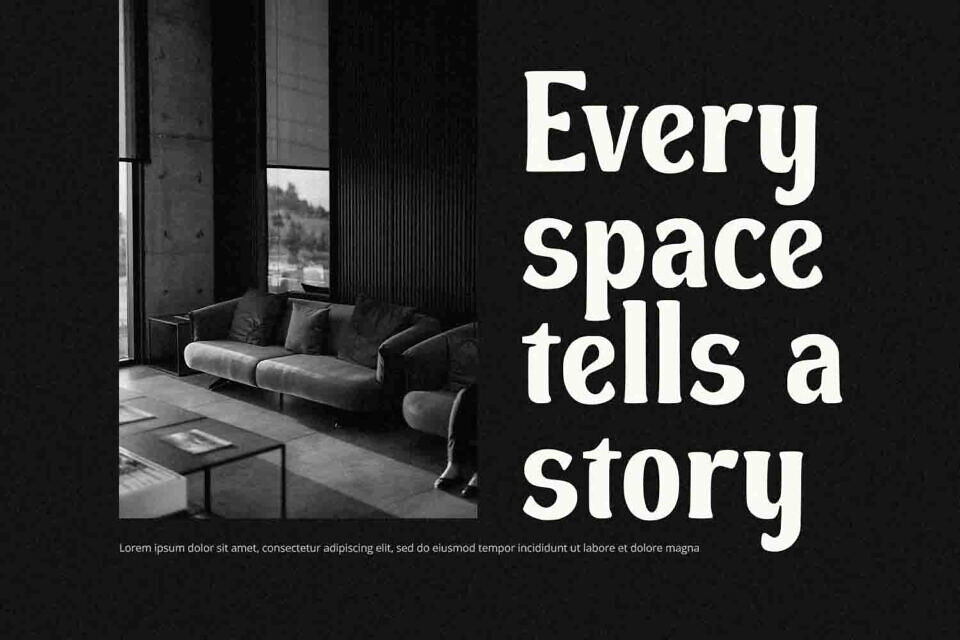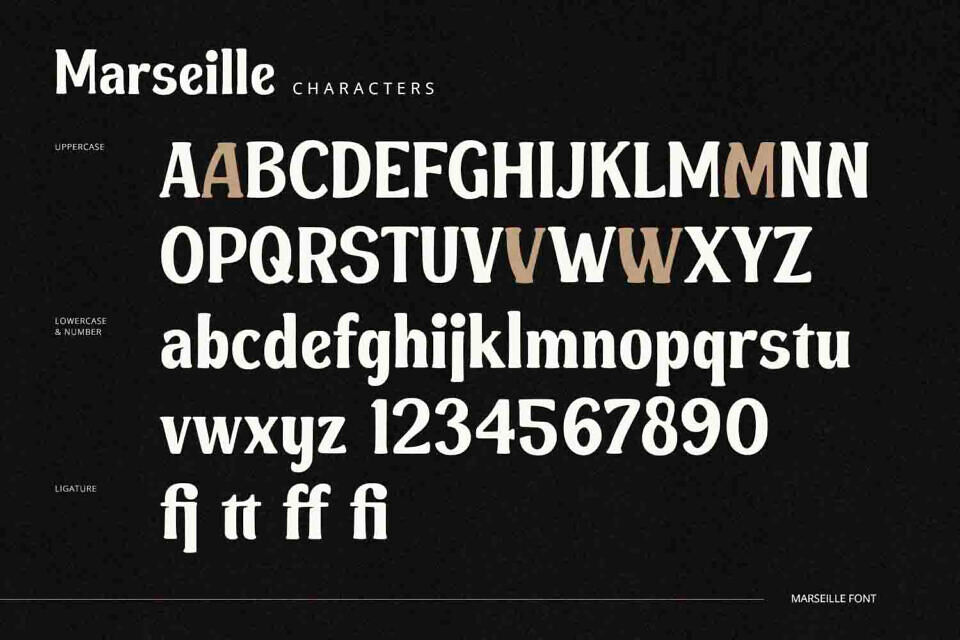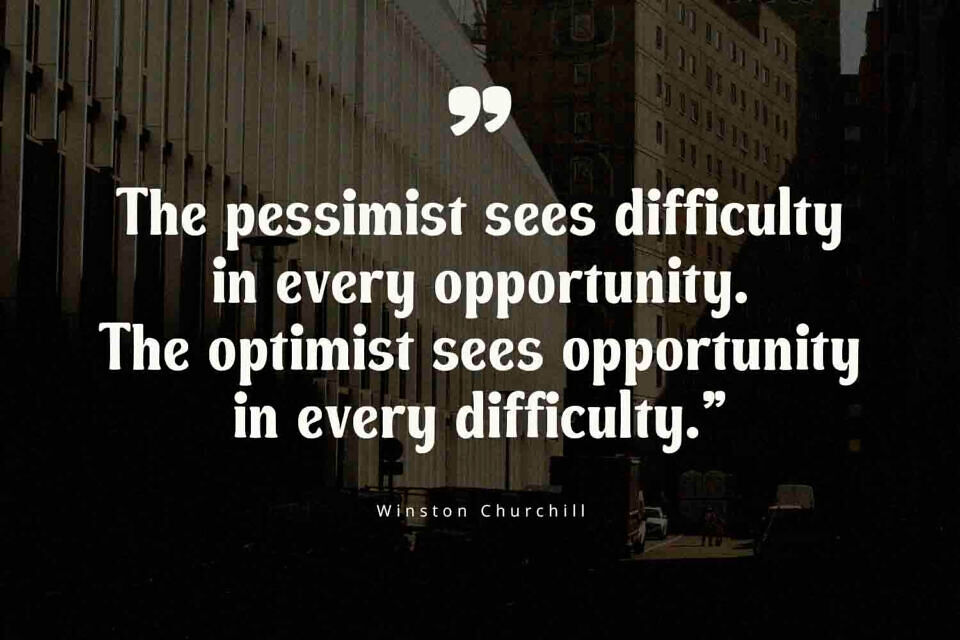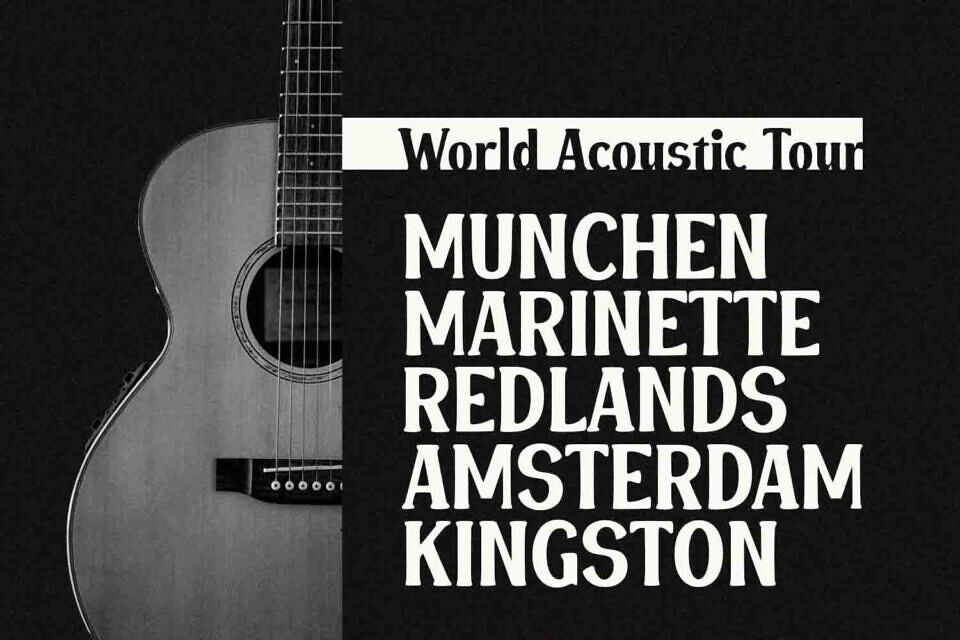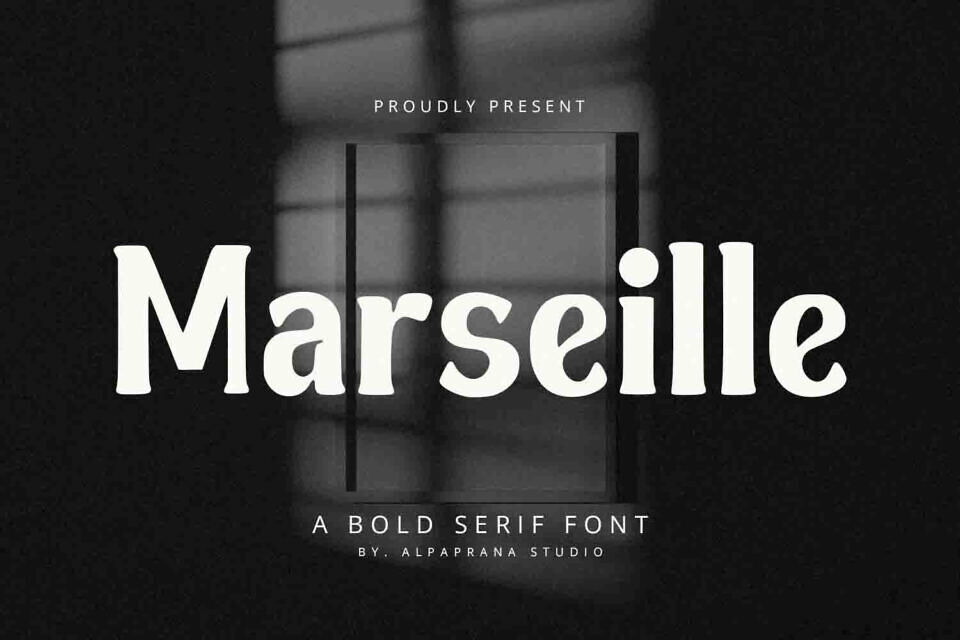
Marseille Font
Marseille is a stylish serif font that combines elegance with modernity. It’s ideal for various design applications, including branding, logos, and lettering, as well as clothing, packaging, and publications. Its versatility also makes it suitable for event materials, marketing products, and creative projects.